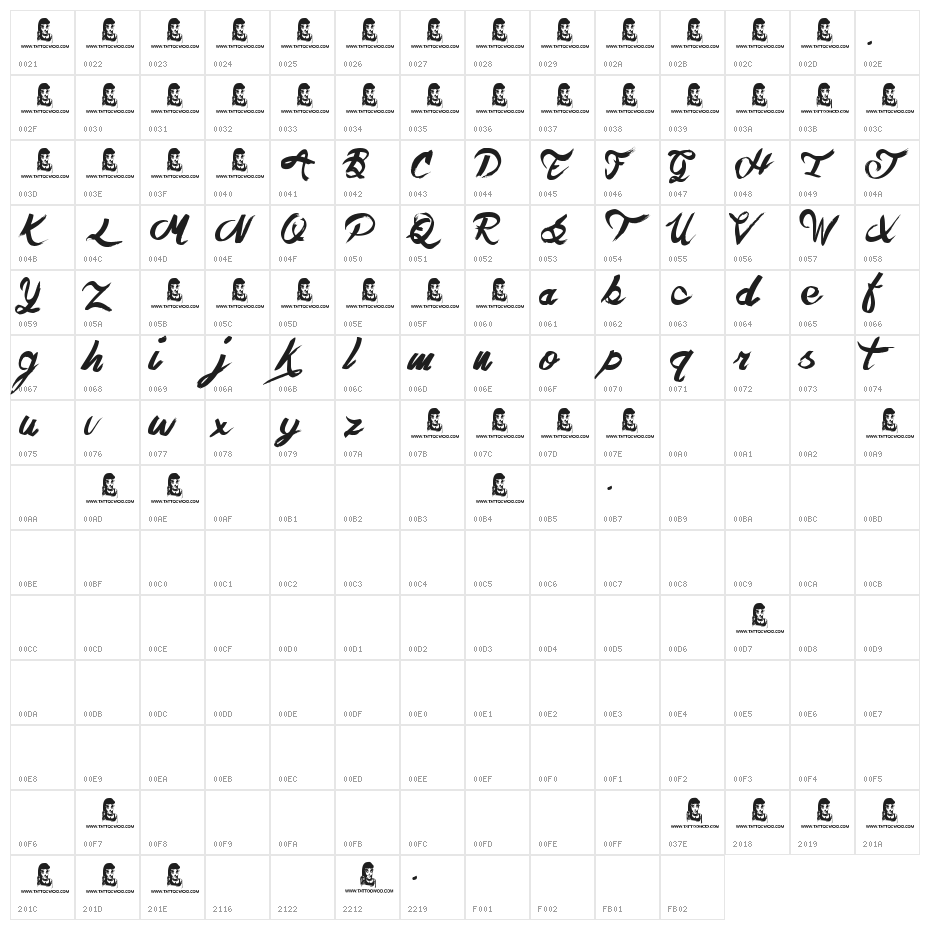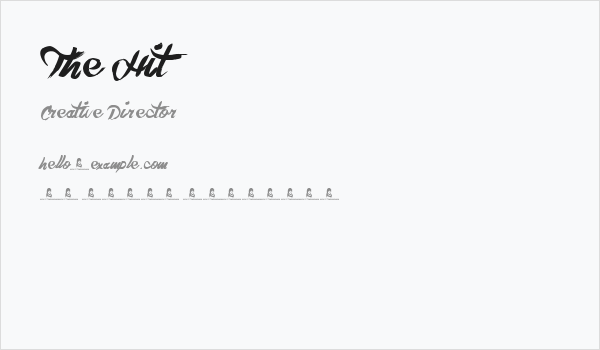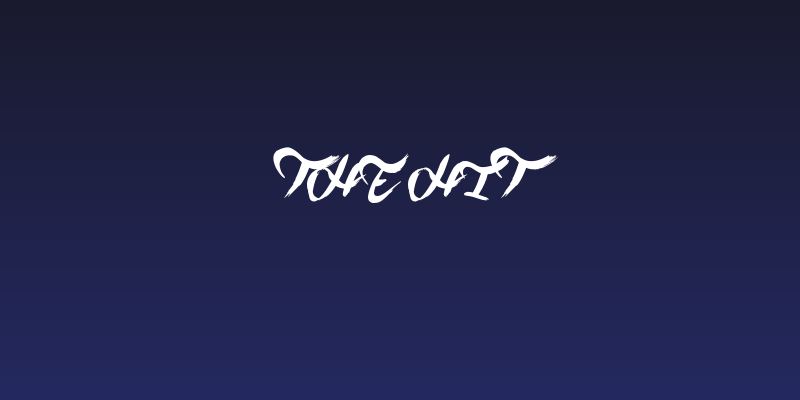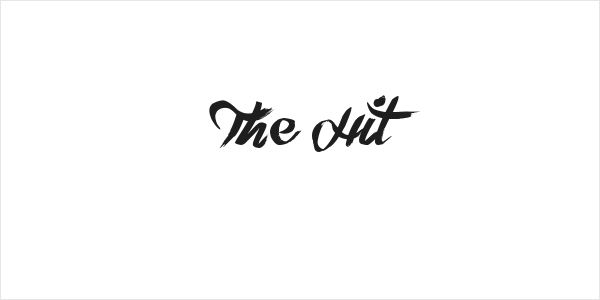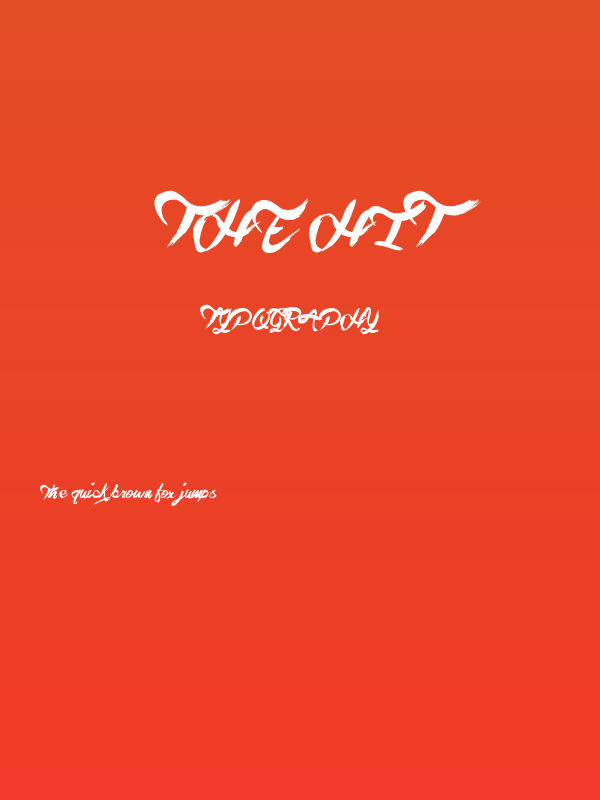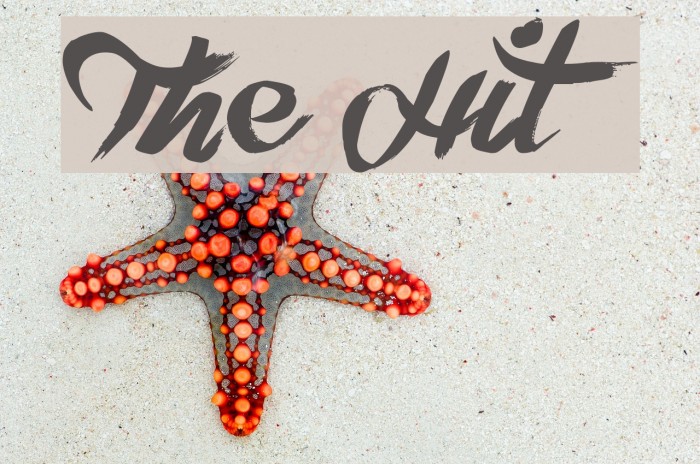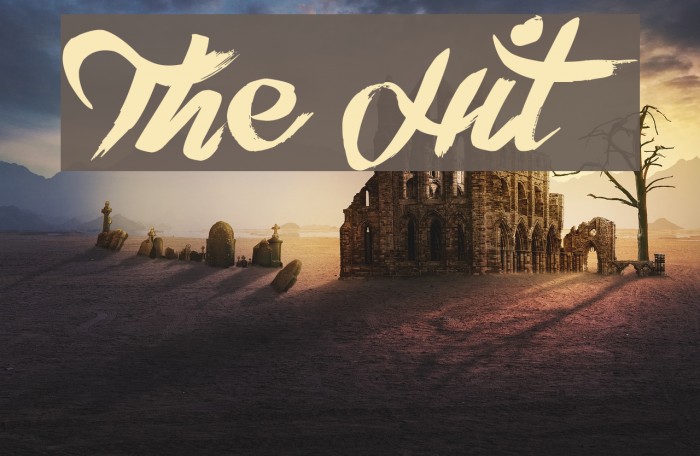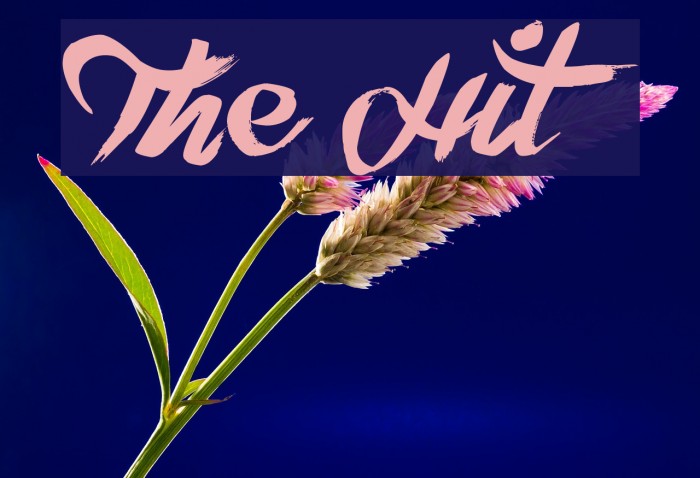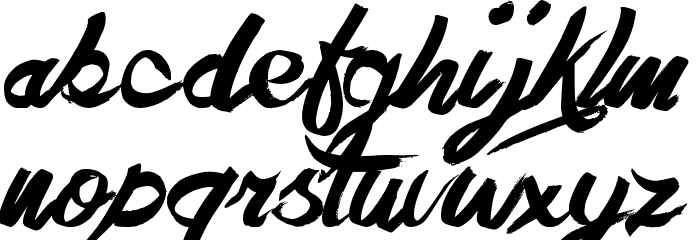
The Hit Font
The Hit Description
This font features a bold, expressive style with a brush-like texture, giving it a dynamic and energetic appearance. The strokes are thick and varied, creating a sense of movement and fluidity. Each letter is uniquely crafted, with some characters having dramatic flourishes and others maintaining a more straightforward form. The uppercase letters are particularly striking, with sweeping curves and sharp angles, while the lowercase letters maintain a consistent flow. This font's artistic flair makes it ideal for projects that require a strong visual impact.